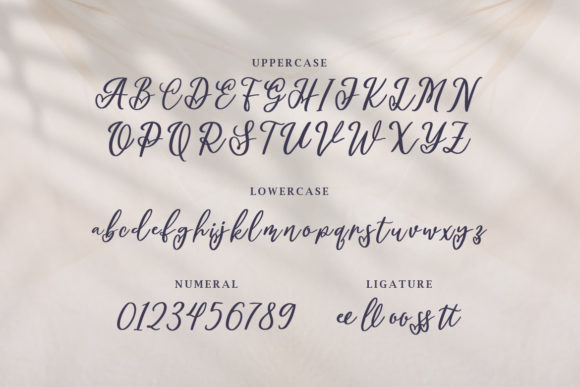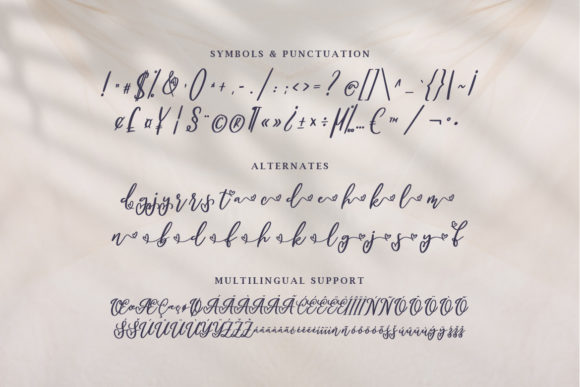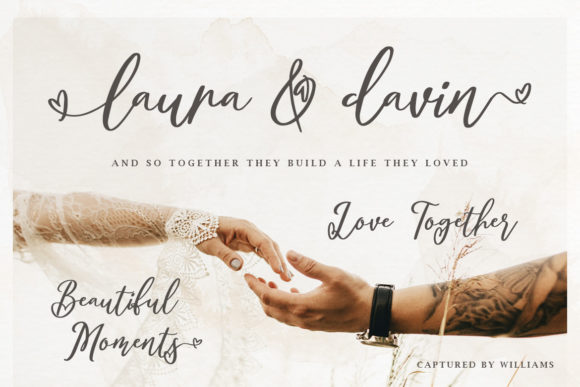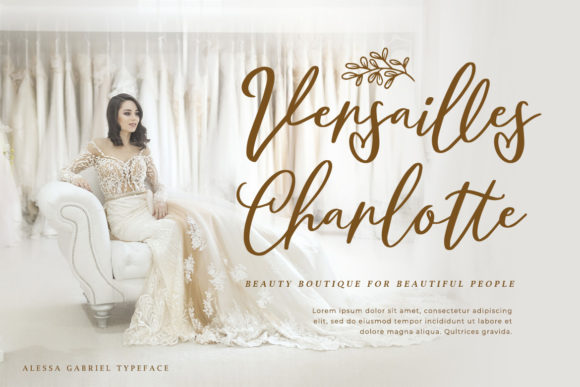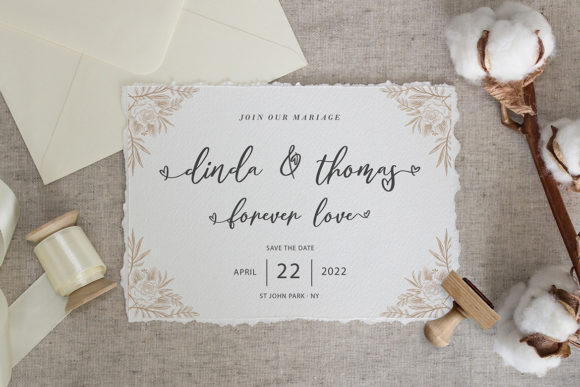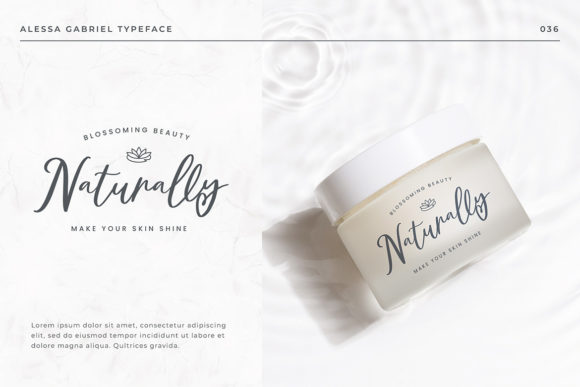
Introducing Alessa Gabriel Font: Elevate Your Designs with Elegance
In the world of typography, a font can make or break a design. For those seeking a touch of elegance and sophistication, Alessa Gabriel Font is a game-changer. This classy and lovely script font is perfect for creating original designs that exude refinement and poise. Whether you’re a designer, crafty DIY enthusiast, or simply someone who appreciates beautiful typography, Alessa Gabriel Font is sure to captivate.
The Essence of Alessa Gabriel Font
Alessa Gabriel Font boasts an elegant style that is both timeless and versatile. Its handwritten script flows effortlessly across the page, making it an ideal choice for a wide range of applications. From logos and greeting cards to makeup and skincare branding, quotes, headings, wedding invitations, posters, and more, this font is designed to impress.
One of the standout features of Alessa Gabriel Font is its adaptability. It can be used in various creative projects, including:
- Logo Design: Create a lasting impression with a custom logo that showcases your brand’s personality.
- Greeting Cards: Add a personal touch to your cards with a font that feels both luxurious and intimate.
- Makeup and Skincare Branding: Elevate your beauty brand with a sophisticated font that resonates with your target audience.
- Quotes and Headings: Make your messages stand out with a stylish font that commands attention.
- Wedding Invitations: Set the tone for a memorable occasion with elegant and refined typography.
- Posters: Grab attention with a bold and beautiful font that’s sure to leave a lasting impression.
Why Choose Alessa Gabriel Font?
With so many fonts available, what sets Alessa Gabriel apart? Here are just a few reasons why designers and crafters alike will love this beautiful script font:
- Elegance: Alessa Gabriel Font exudes sophistication and refinement, making it perfect for high-end designs.
- Versatility: Its adaptability ensures that it can be used across various mediums and projects.
- Timelessness: Unlike trendy fonts that quickly go out of style, Alessa Gabriel Font’s classic appeal ensures it will remain relevant for years to come.
- Easy to Read: Despite its elegant nature, this font remains clear and easy to read, making it functional as well as beautiful.
Tips for Using Alessa Gabriel Font
To get the most out of Alessa Gabriel Font, consider the following tips:
- Pair with Complementary Fonts: Combine Alessa Gabriel Font with simpler fonts to create visual interest and hierarchy in your designs.
- Experiment with Colors: While the font itself is elegant, experimenting with different colors can help you achieve the desired mood or tone for your project.
- Pay Attention to Spacing: Ensure that your design isn’t too crowded by adjusting the spacing between letters and lines.
Alessa Gabriel Font is a beautiful, elegant script font that can elevate any design. Its versatility, timeless appeal, and ease of use make it an excellent choice for designers and crafters looking to add a touch of sophistication to their projects. Whether you’re creating a logo, greeting card, or any other design, Alessa Gabriel Font is sure to impress. Discover the power of elegant typography and bring your designs to life with Alessa Gabriel Font.